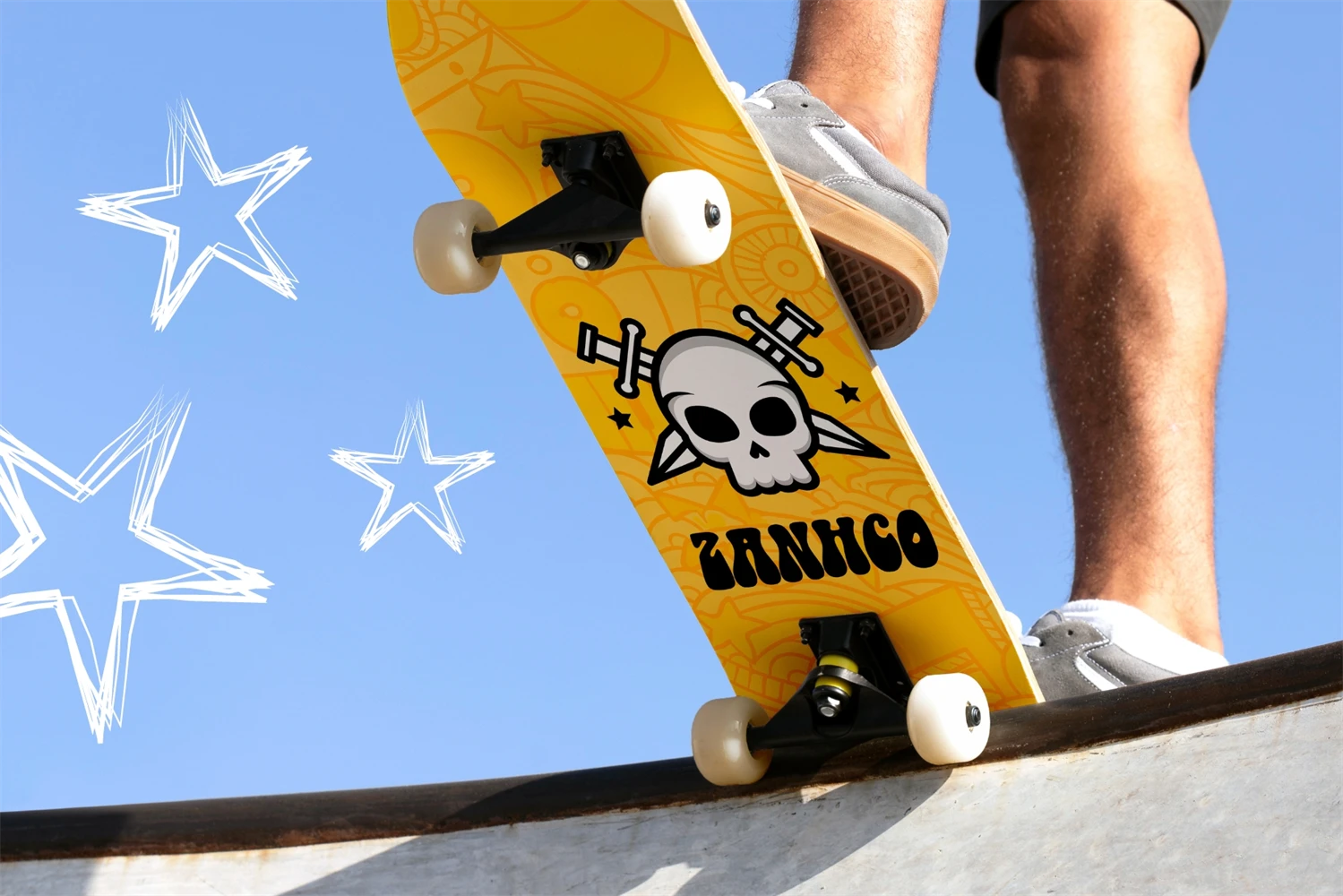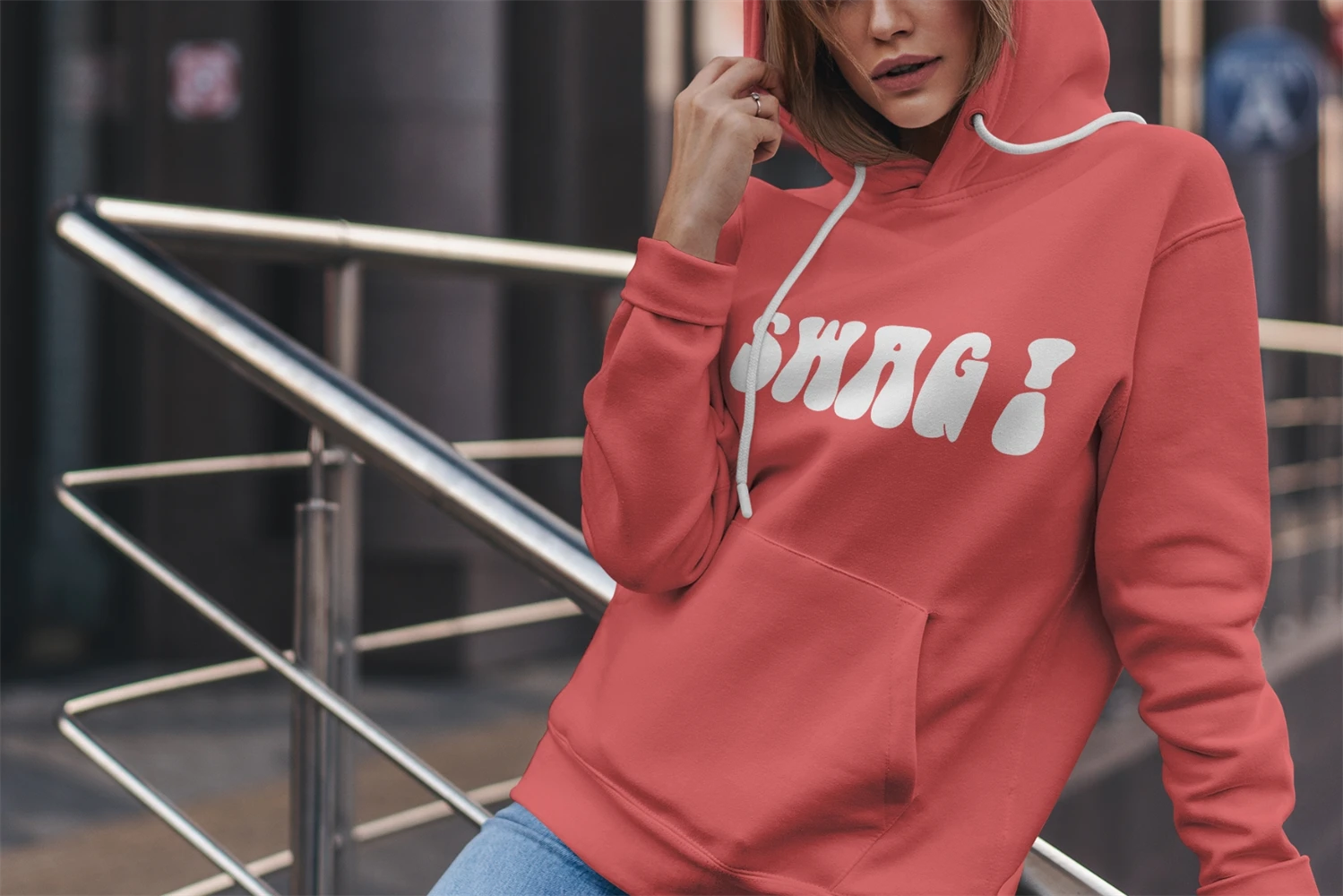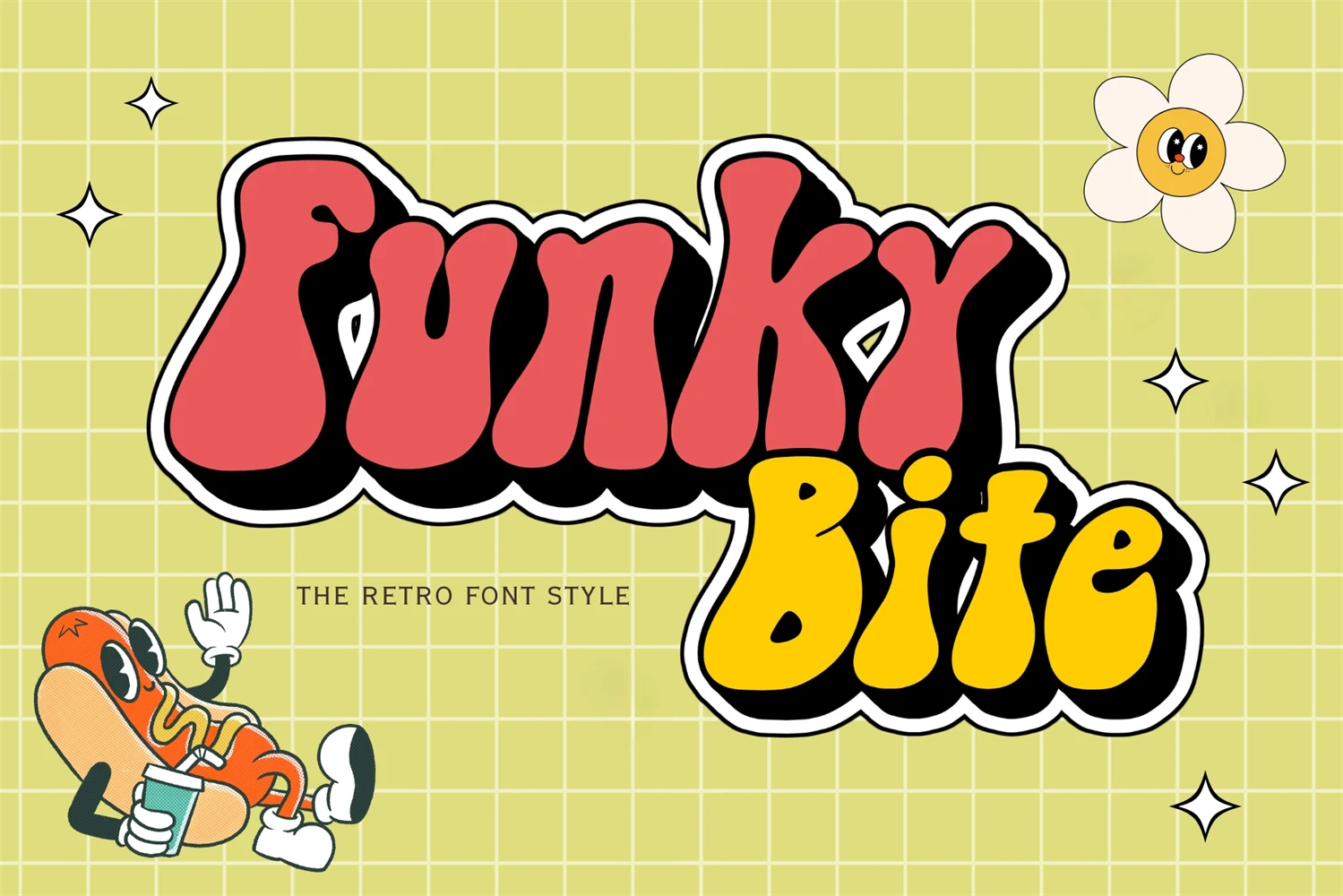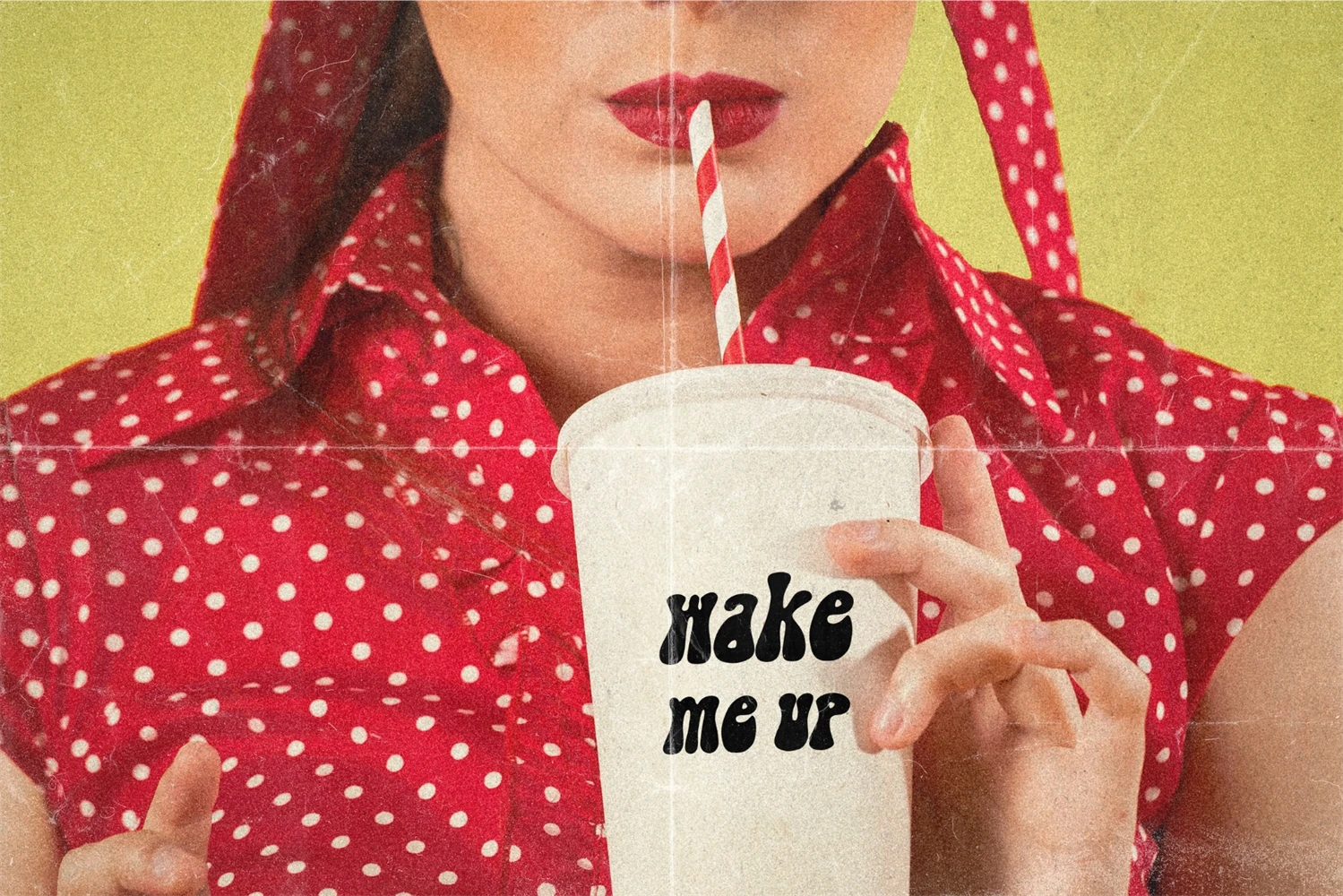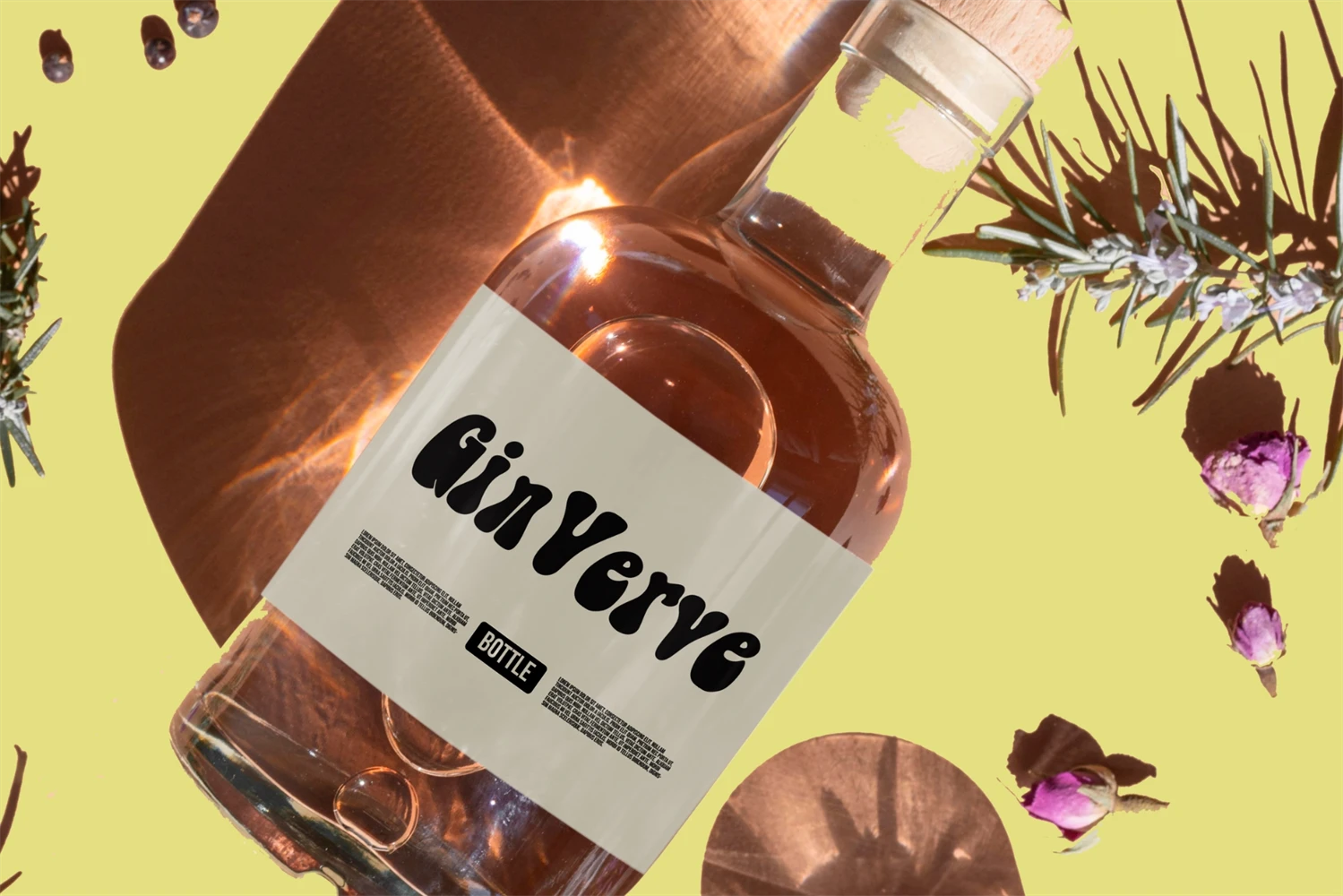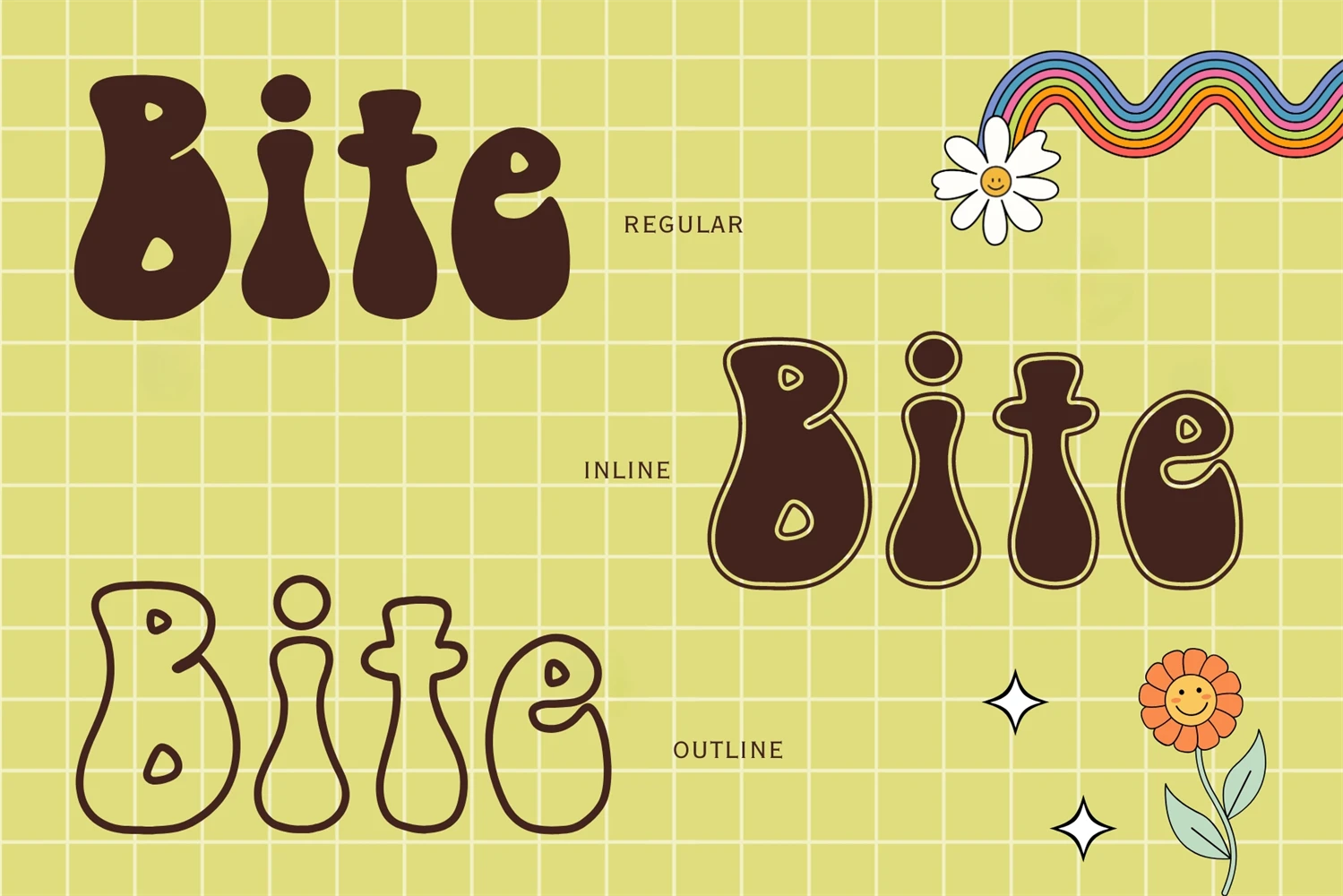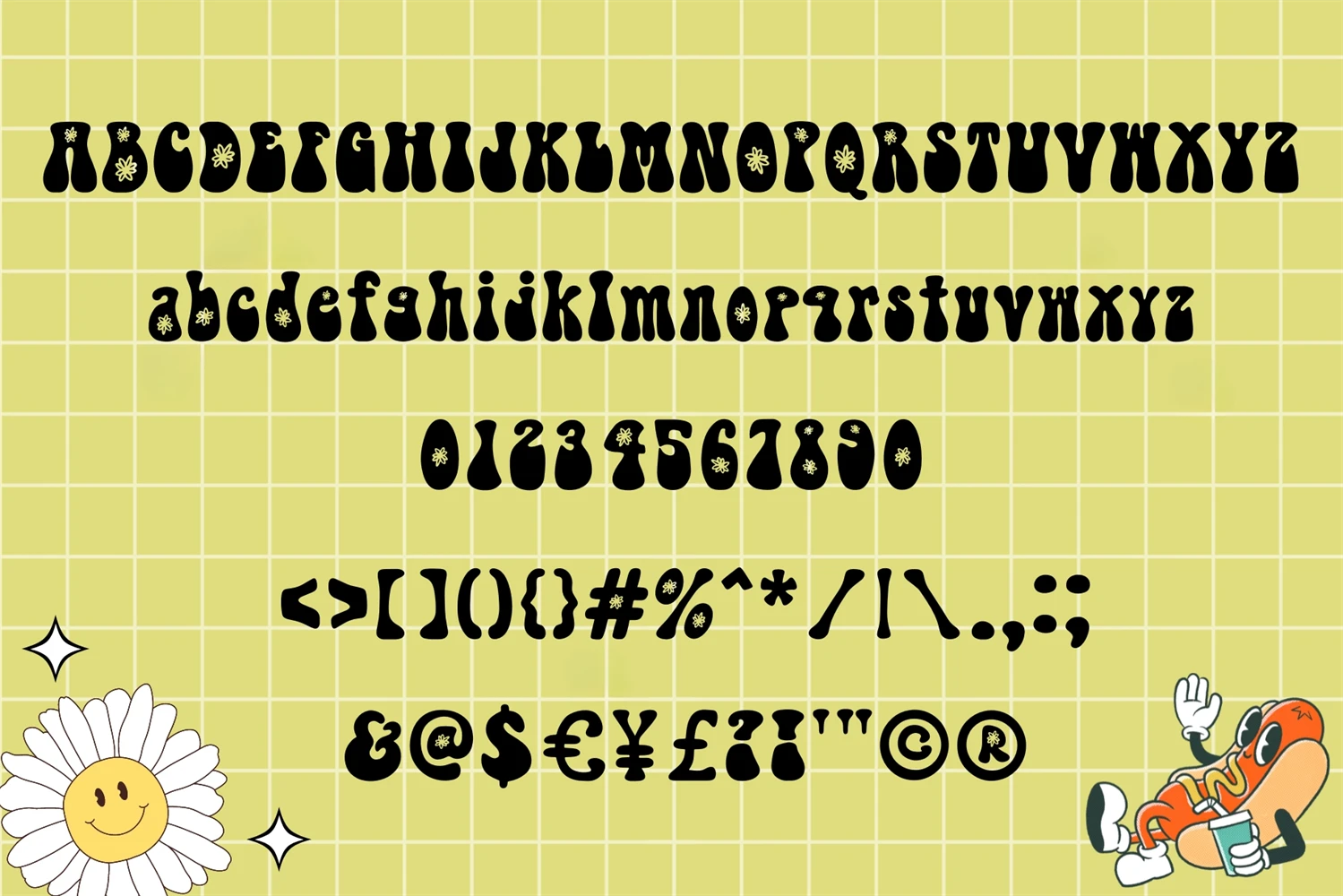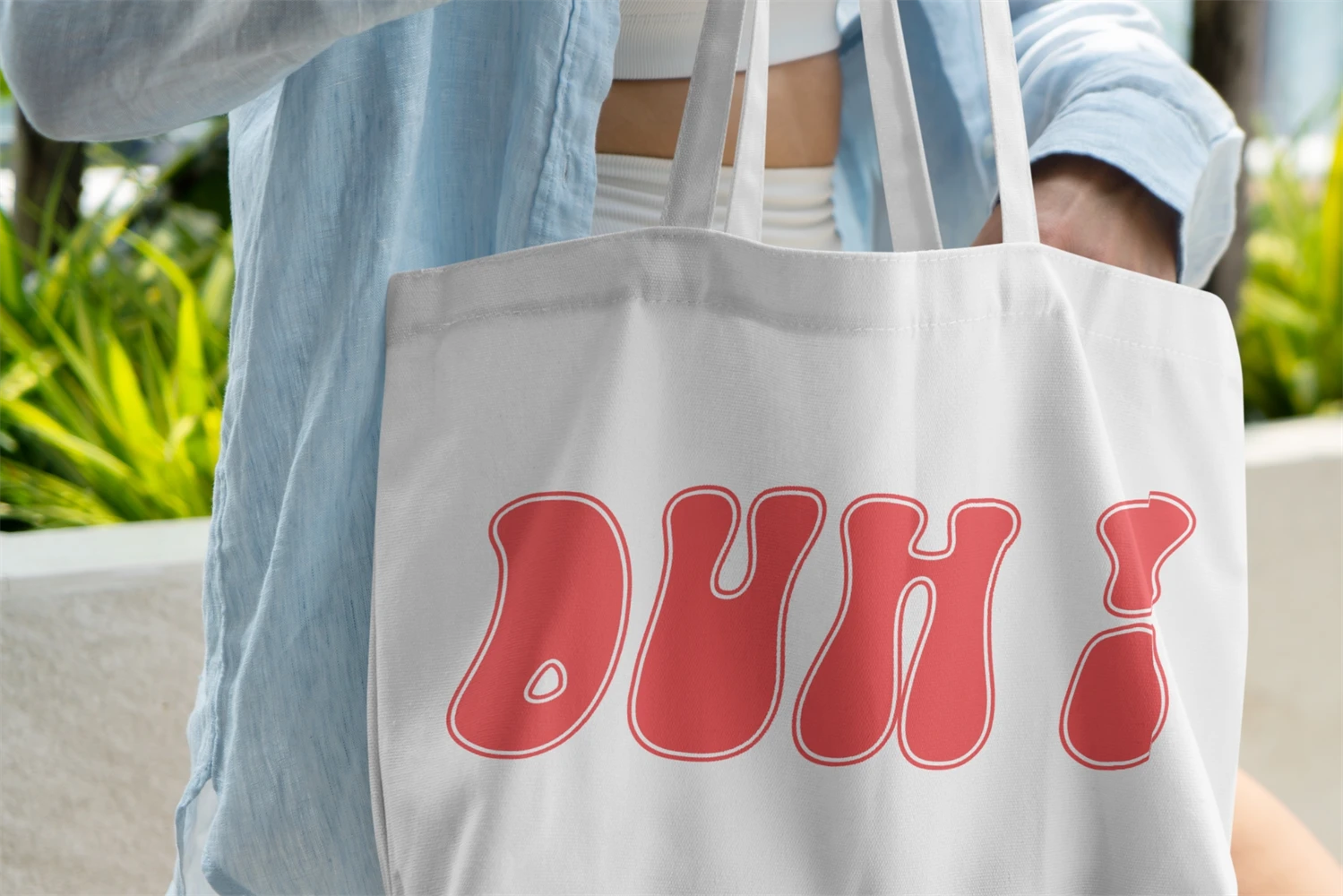
Funky Bite is a bold and vibrant retro display font that pays homage to the iconic Y2K era. Its energetic and playful design instantly transports you back to the fun and funky vibe of the early 2000s. With its bold, chunky letterforms and quirky details, Funky Bite commands attention and adds a nostalgic flair to any project. This font is a perfect choice for posters, album covers, or any design that requires a touch of boldness and retro charm. Get ready to embrace the vibrant spirit of the Y2K era with Funky Bites lively and captivating style.